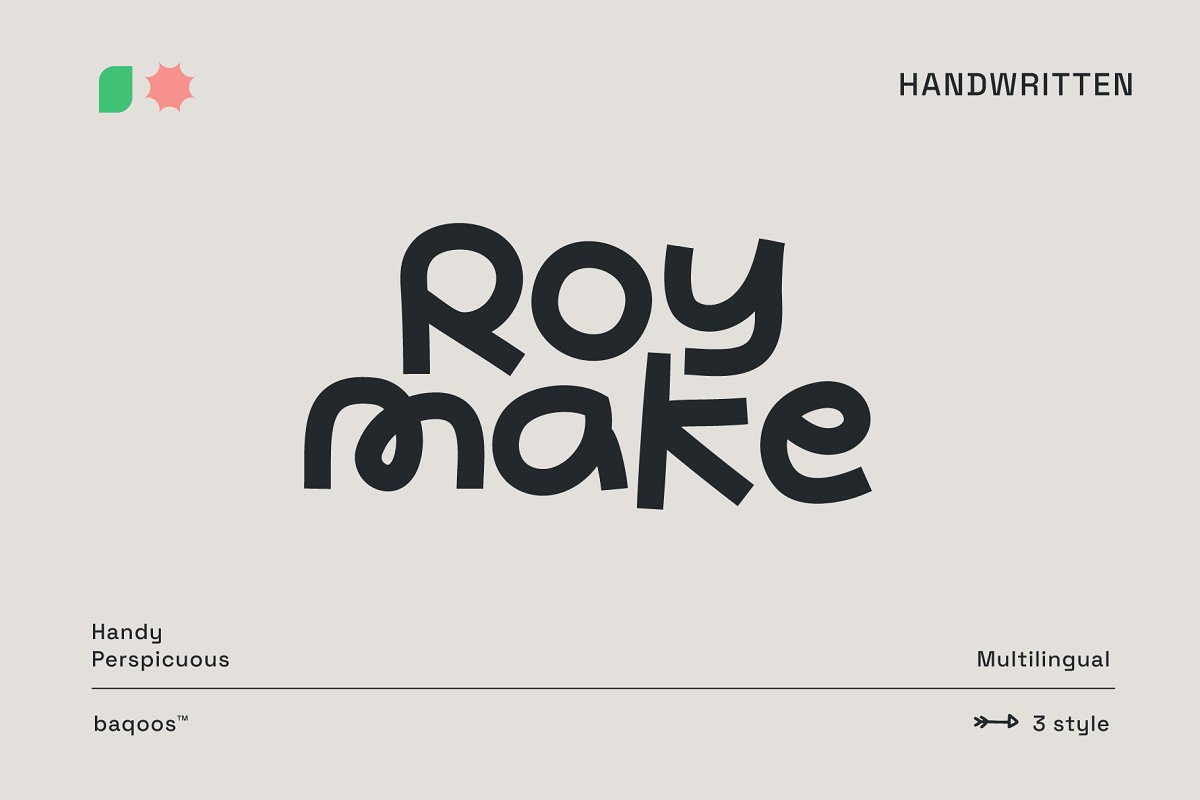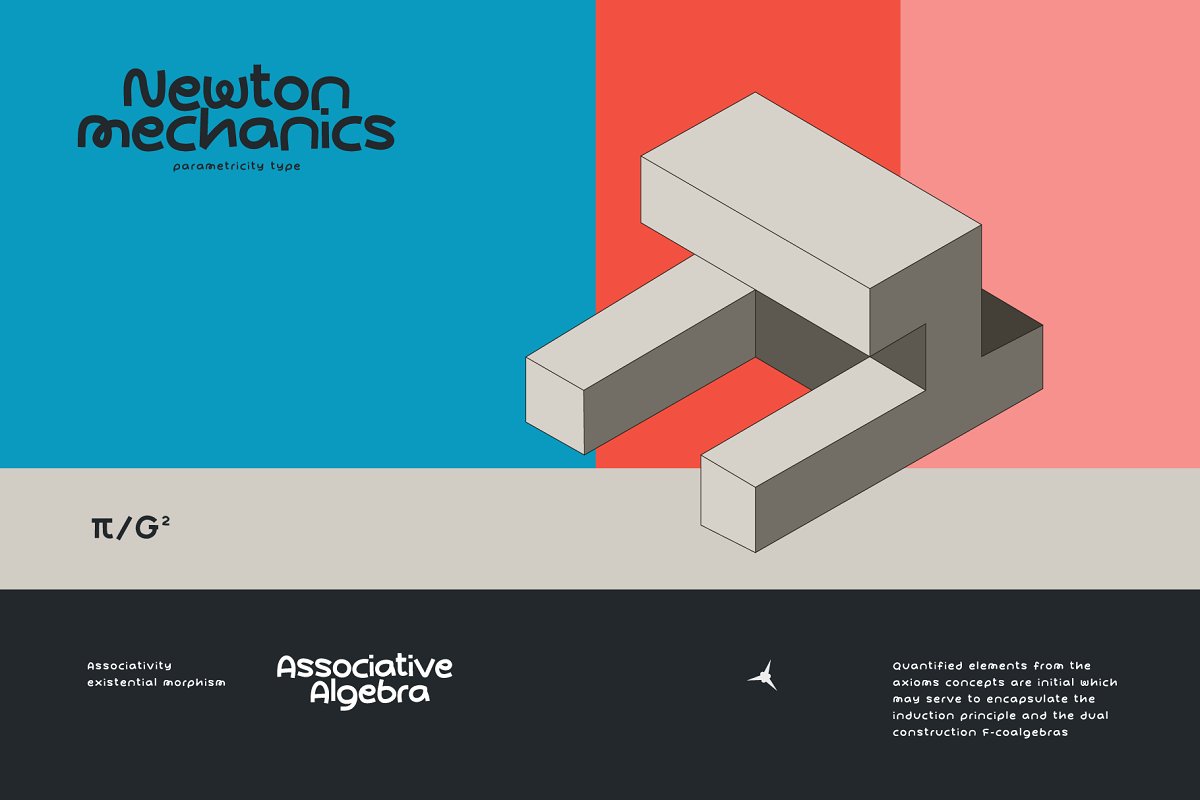
About the Roy Make Font
Roy Make is a handy perspicuous handwritten typeface apt for headline, editorial, branding, packaging, printed materials and typographic applications, 200+ glyphs including punctuation and numerical,